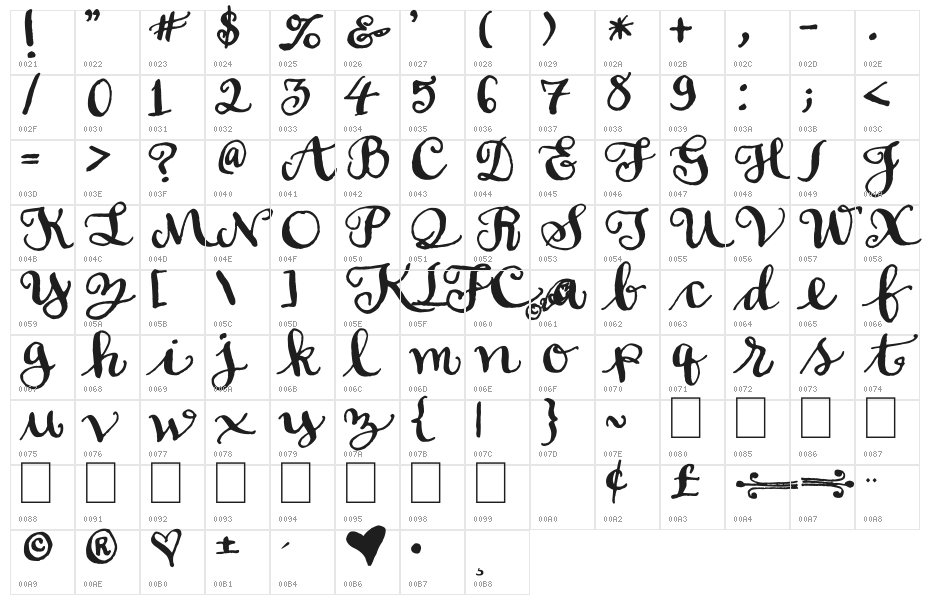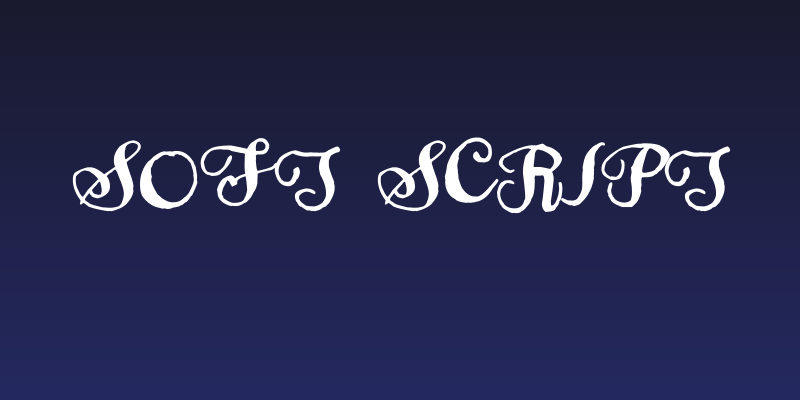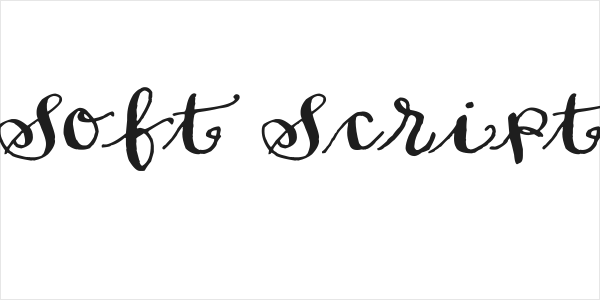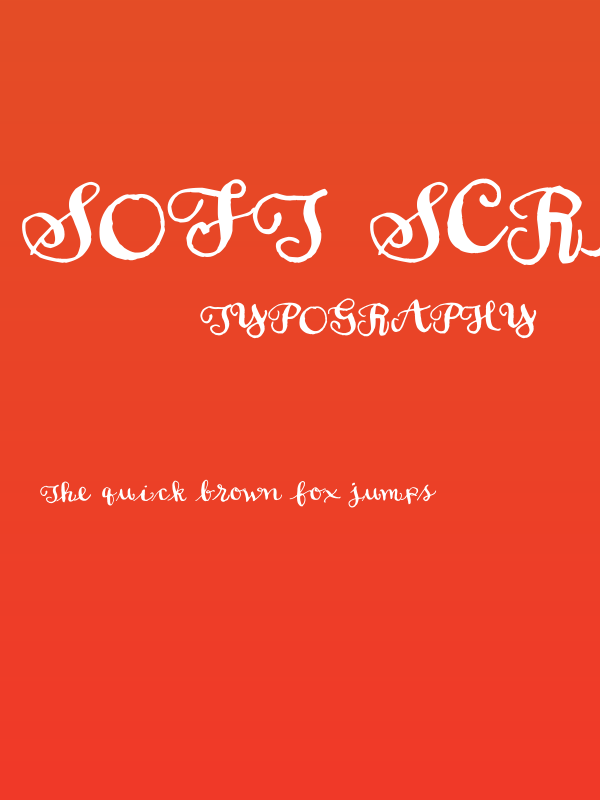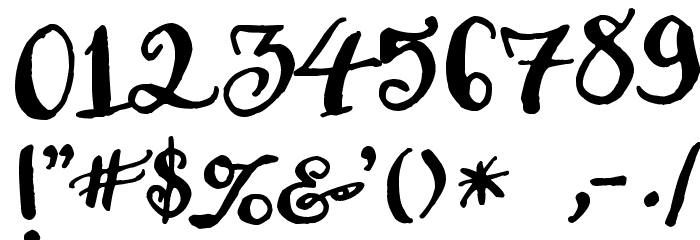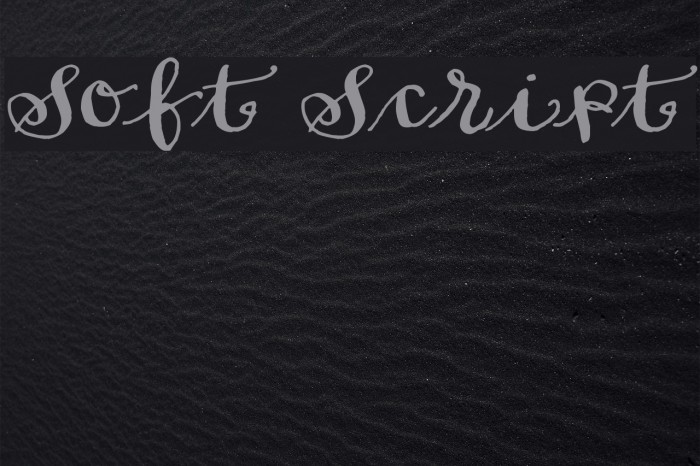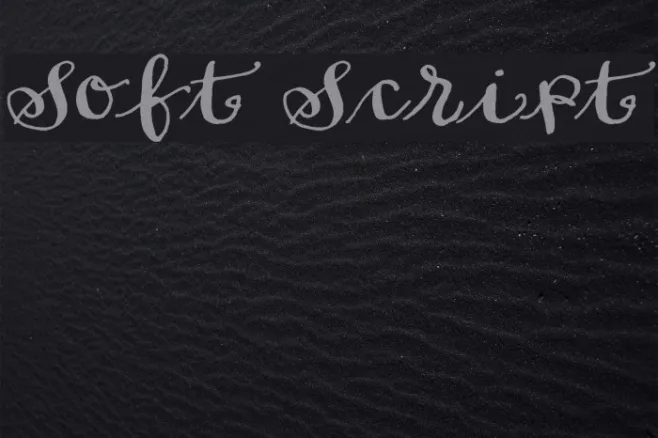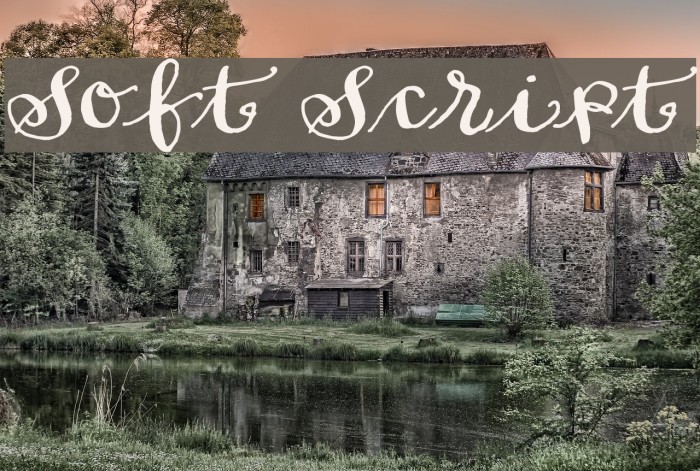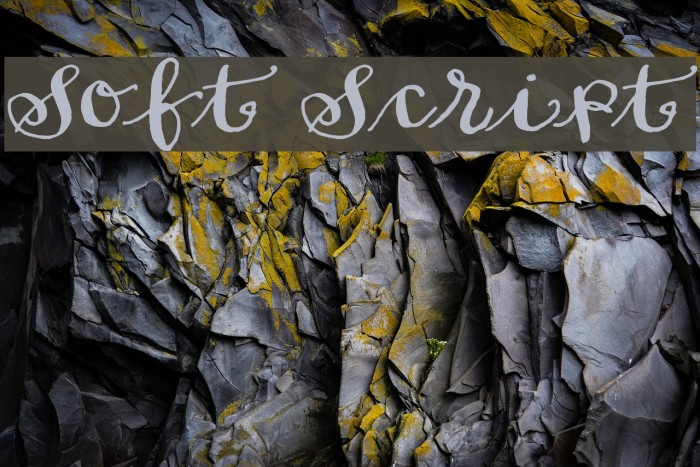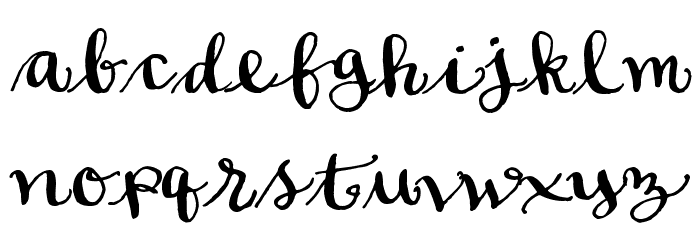
Soft Script Font
Soft Script Description
This font features a playful and elegant script style, characterized by its flowing, cursive letterforms. The uppercase letters are bold and ornate, with distinctive loops and flourishes that add a touch of sophistication. The lowercase letters maintain a consistent style, with smooth curves and a slightly whimsical appearance. The numerals are equally decorative, with unique shapes that complement the overall aesthetic. Special characters are designed with the same attention to detail, ensuring a cohesive look across all glyphs. This font's artistic flair makes it ideal for creative and expressive design projects.